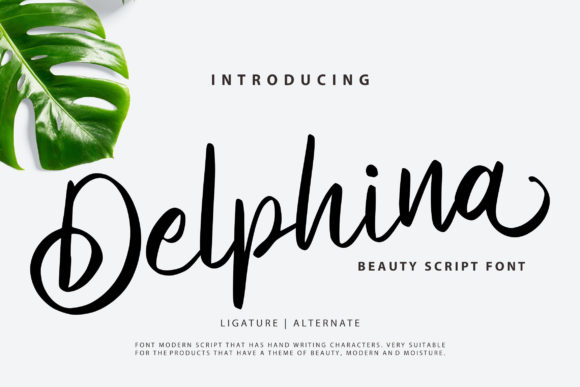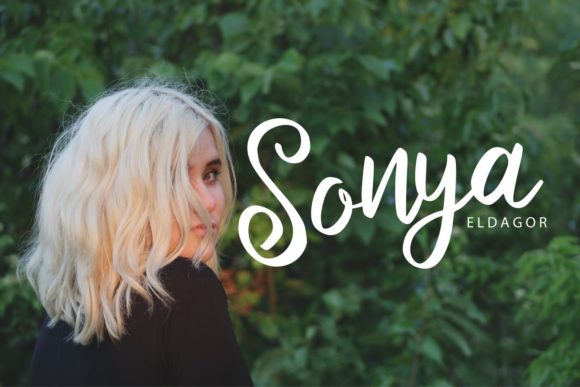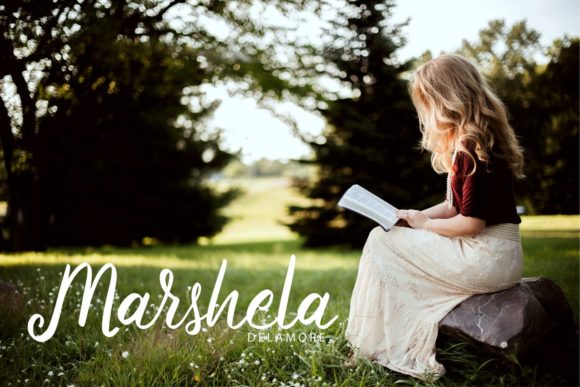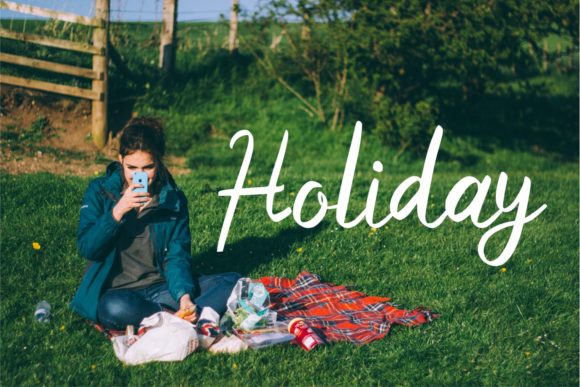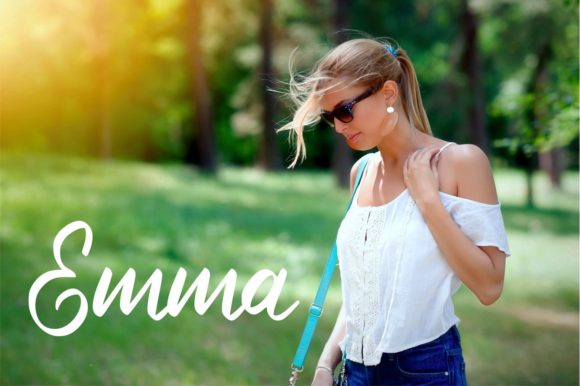
HomeScript FontsDelphina Font Script Fonts Delphina Font FacebookXPinterestWhatsApp Delphina Font Poster 2 Delphina Font Poster 3 Delphina Font Poster 4 Delphina Font Poster 5 About Delphina Font Delphina is a beautiful and smart handwritten font with a cool vibe. Get inspired by its unique charm! DOWNLOAD ON CREATIVE FABRICAThis font is sold and delivered by Creative Fabrica. Font Canyon may earn a commission if you buy through this link. People also explored Black Ashpalt Font Solid Navy Triblend Bella Canvas 8413 Santamire Font Konstone Font Orion Font Teacher Font Flip Clock: Black Font Clearwater Lake Font Signastia Font 377 0 TagsDelphina Font Previous articleMefika FontNext articleRiver Young Font LEAVE A REPLY Cancel reply Comment: Please enter your comment! Name:* Please enter your name here Email:* You have entered an incorrect email address! Please enter your email address here Website: Save my name, email, and website in this browser for the next time I comment. Personal Use Free Yumail Personal Use Free Read more about this font Beat My Guest Personal Use Free Read more about this font Vogue Font Personal Use Free Read more about this font Gila Personal Use Free Read more about this font BLOG Using Fonts in Digital Marketing: Tips to Strengthen Your Brand Identity In the realm of digital marketing, every visual element plays a crucial role in shaping a brand's identity, and fonts are no exception. The... Where to Buy American Fonts Online in 2024 Exploring Font Trends 5 Fonts That Will Dominate Design Trends in 2026